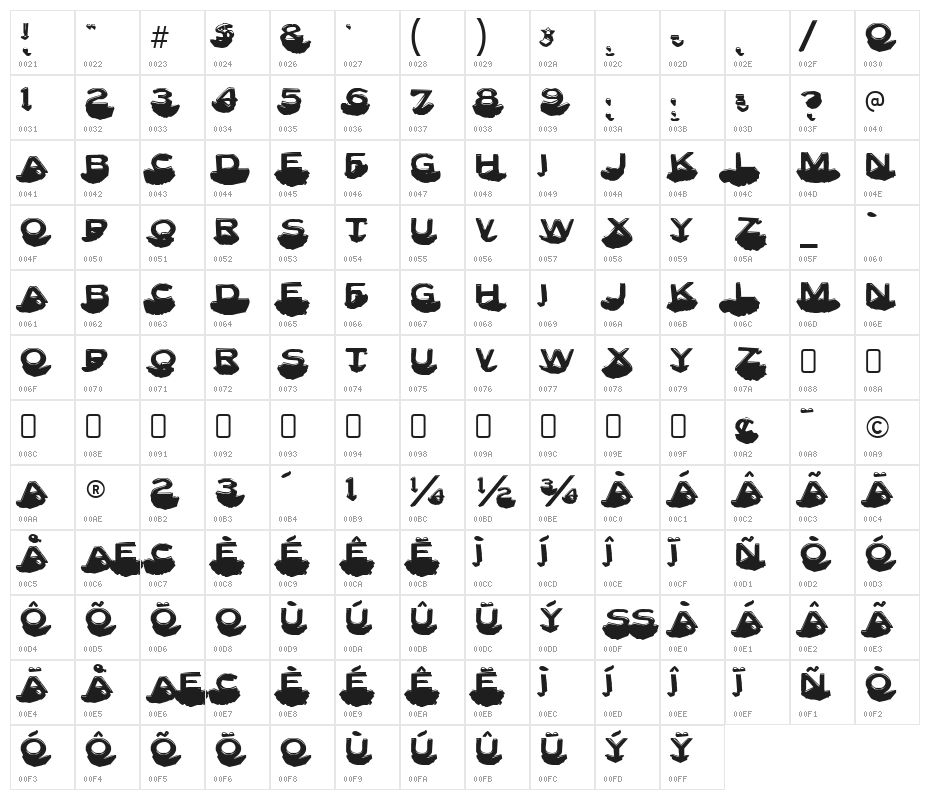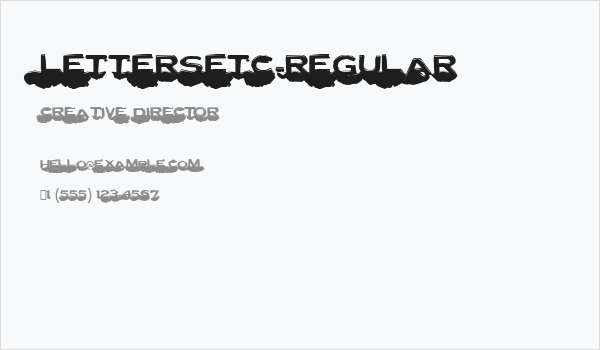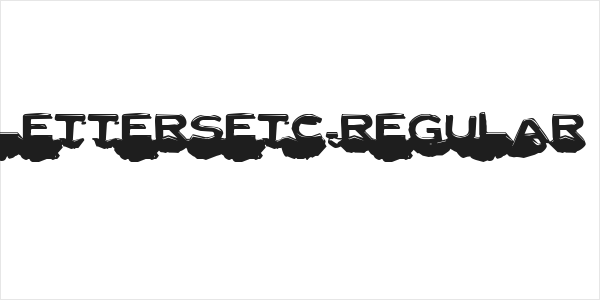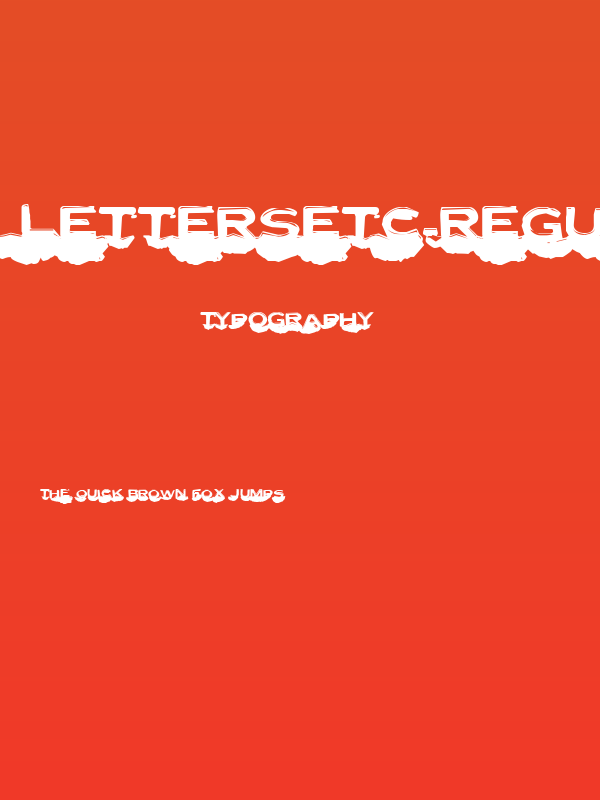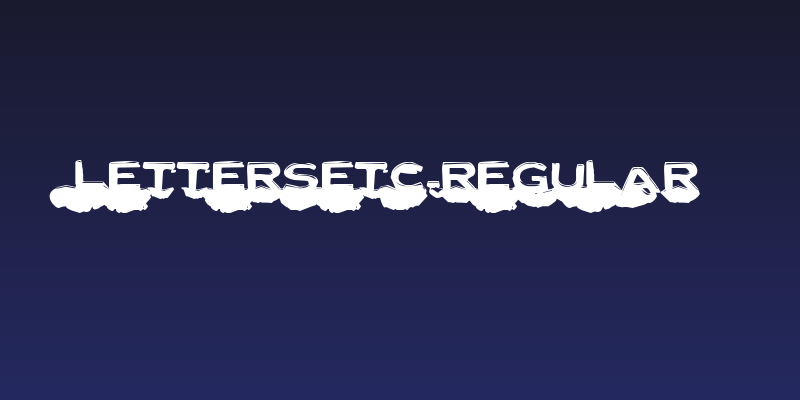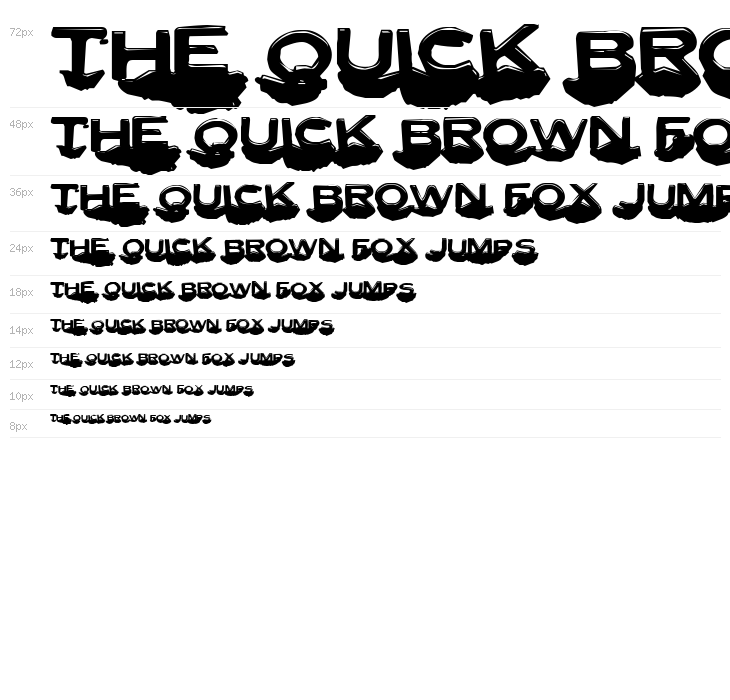
LetterSetC-Regular Font
LetterSetC-Regular Description
This font features a bold, three-dimensional style with a shadow effect that gives it a striking, impactful appearance. The characters are uppercase and lowercase alphabets, along with numerals and special symbols, all designed with a consistent thickness and a playful, decorative flair. The shadowing adds depth, making it suitable for eye-catching designs. The font's unique style is both modern and slightly retro, reminiscent of vintage signage or comic book lettering.
Proposed ProjectsIdeal for poster designs, comic book titles, retro-themed branding, and eye-catching advertisements.